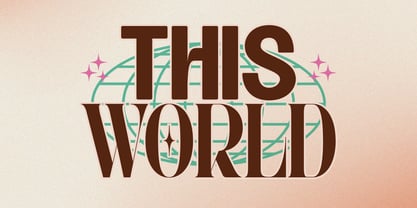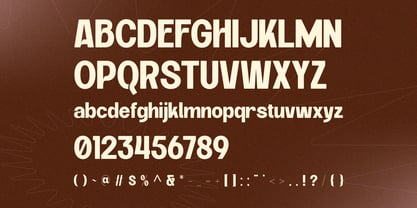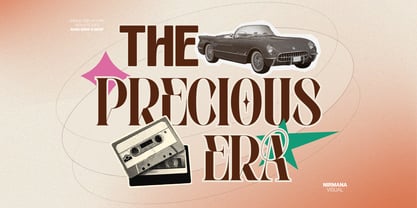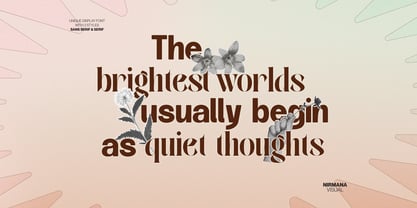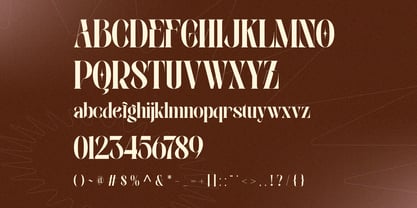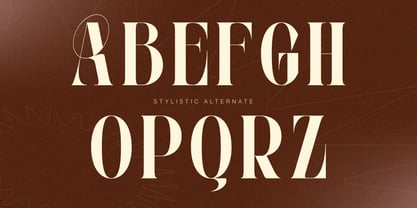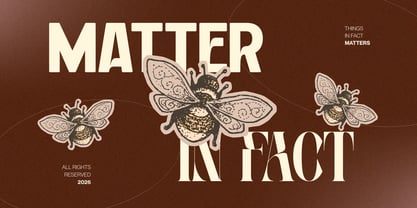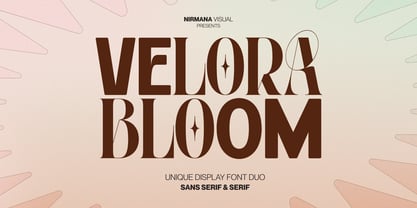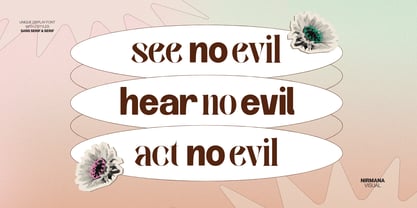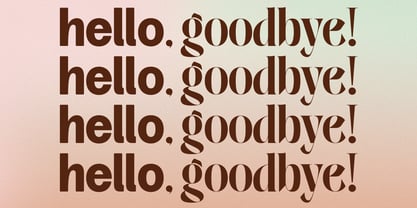
Velora Bloom
by Nirmana Visual
The Velora Bloom Font Family was designed by Sigit Dwipa and published by Nirmana Visual. Velora Bloom contains 2 styles and family package options. More about this family
Velora Bloom is a stylish font duo that combines a retro vintage serif with a clean modern sans serif, creating a perfect balance of elegance and versatility. Designed for branding and logo design, this duo brings a timeless aesthetic with classic curves and refined details. Velora Bloom works beautifully for logos, packaging, websites, social media, and editorial design, making it ideal for brands that want a sophisticated vintage charm with a modern touch.
Designers: Sigit Dwipa
Current Foundry: Nirmana Visual